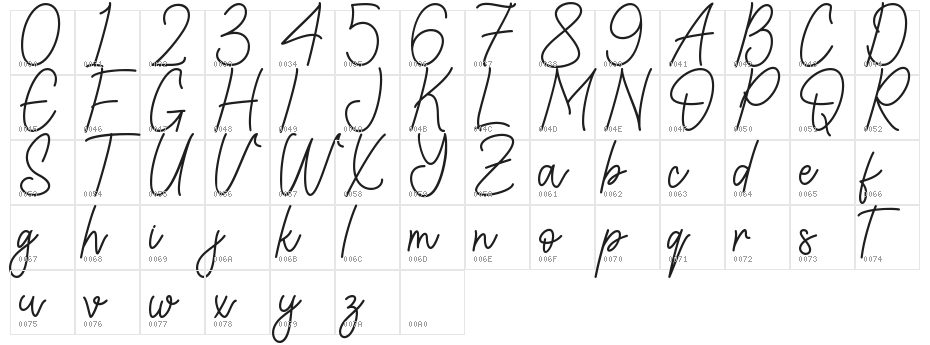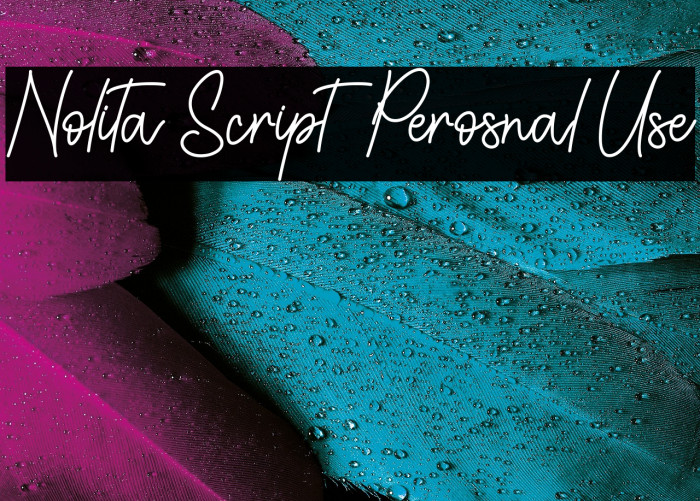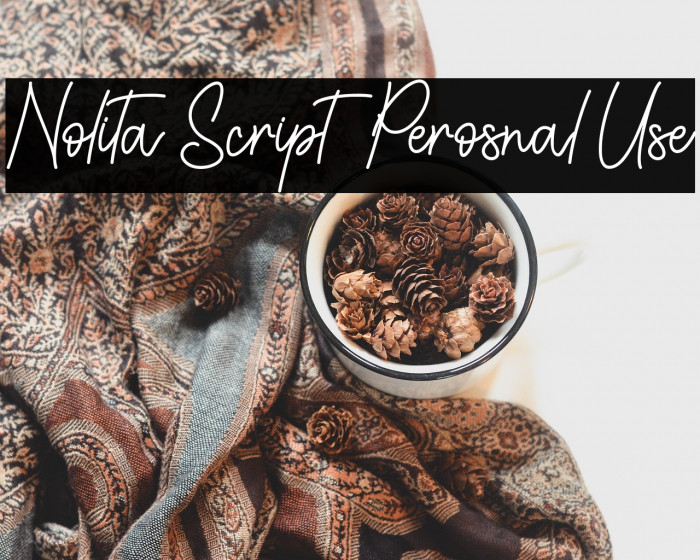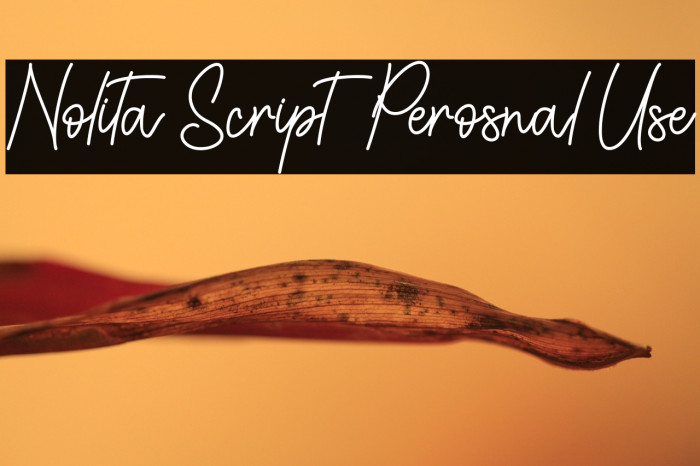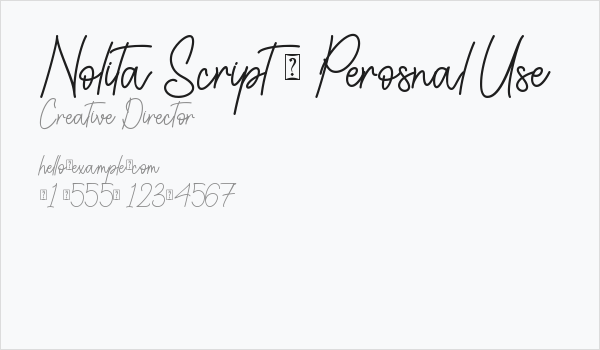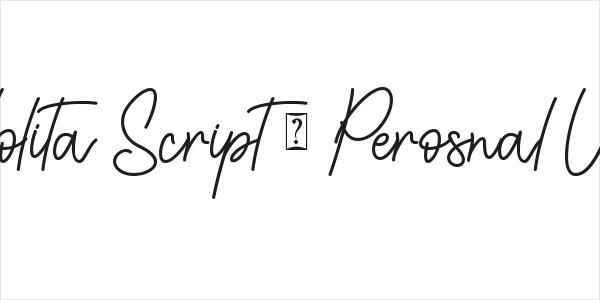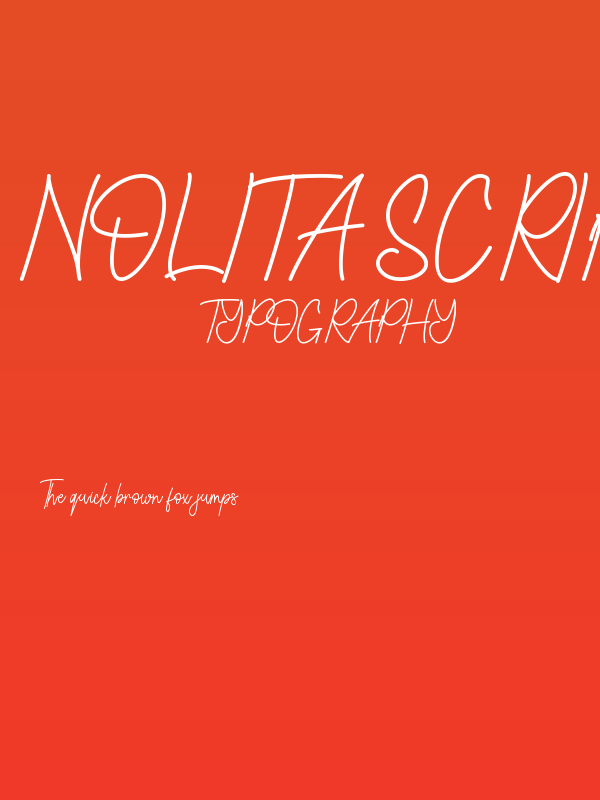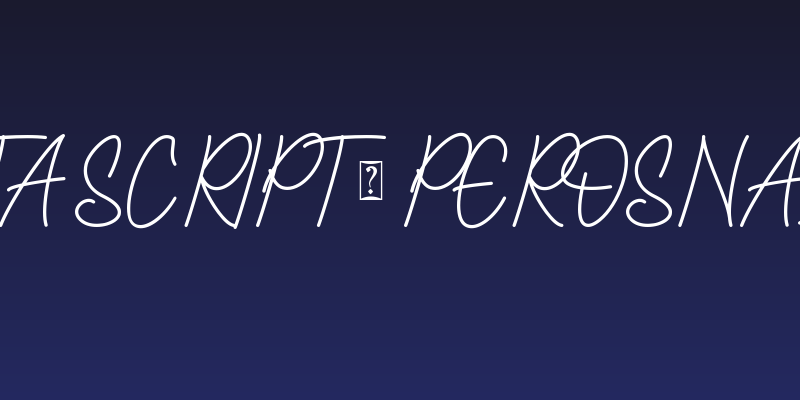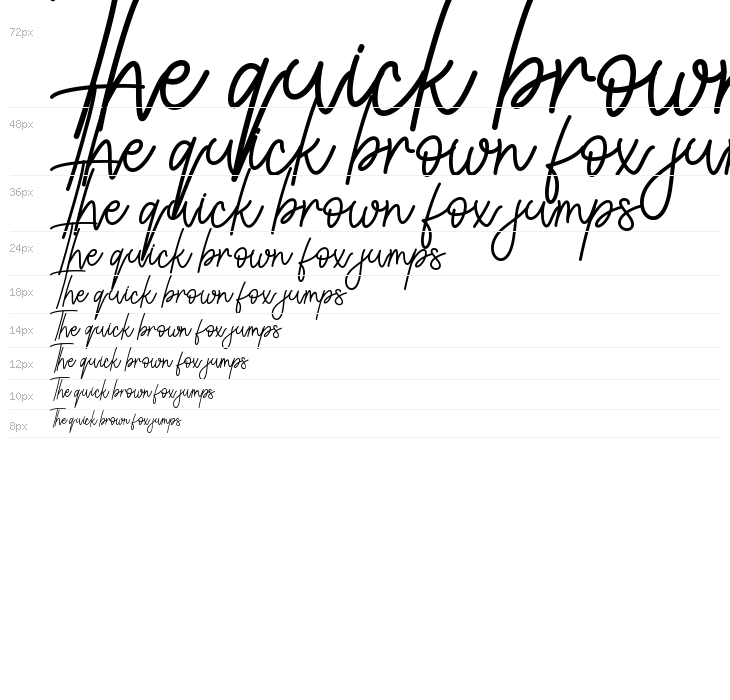
Nolita Script - Perosnal Use Font
Nolita Script - Perosnal Use Description
This font exudes a lively and elegant script style, characterized by its fluid and connected letterforms. The uppercase letters are tall and slender, with a slight slant that adds a dynamic feel. The lowercase letters are more intricate, featuring loops and flourishes that enhance its decorative appeal. The numbers maintain the same graceful flow, ensuring consistency across all characters. Special characters are seamlessly integrated, maintaining the font's cohesive look. This script font is perfect for adding a personal touch to any project, with its sophisticated yet approachable design.
| Proposed Projects | Ideal for wedding invitations, greeting cards, branding, and any project requiring a personal, elegant touch. |